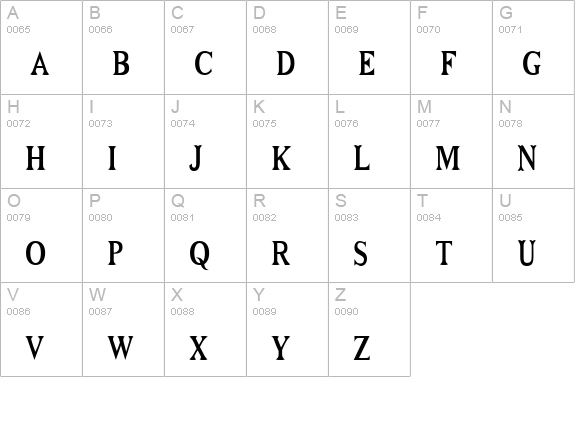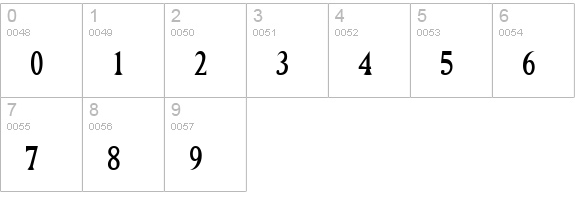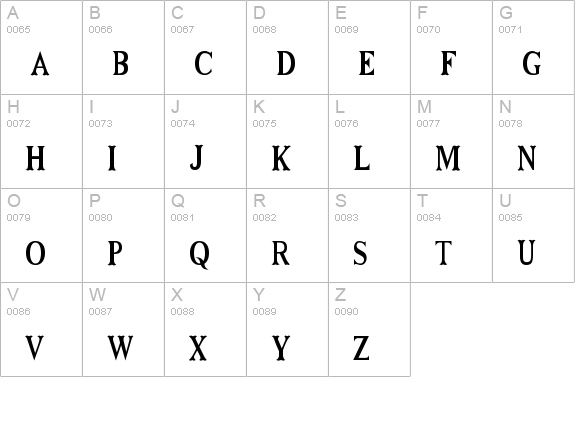
Niew CroMagnon Narrow Font Details
Niew CroMagnon Narrow is a distinctive, condensed-width variant in the Niew typeface family \xE2\x80\x94 well suited to design and typography projects.
Niew CroMagnon Narrow font is a sleek and sophisticated typeface that exudes elegance and modernity. Its slim letterforms and sharp edges make it perfect for conveying a sense of style and professionalism in any design project. The clean lines and balanced spacing of this font ensure readability while adding a touch of sophistication to any text. What sets Niew CroMagnon Narrow font apart is that it is available for free download at FontsMarket.com. This means that you can easily access this high-quality font without any cost, making it a valuable addition to your font library. Whether you're designing a website, creating marketing materials, or working on a branding project, Niew CroMagnon Narrow font is sure to elevate your designs and leave a lasting impression on your audience.